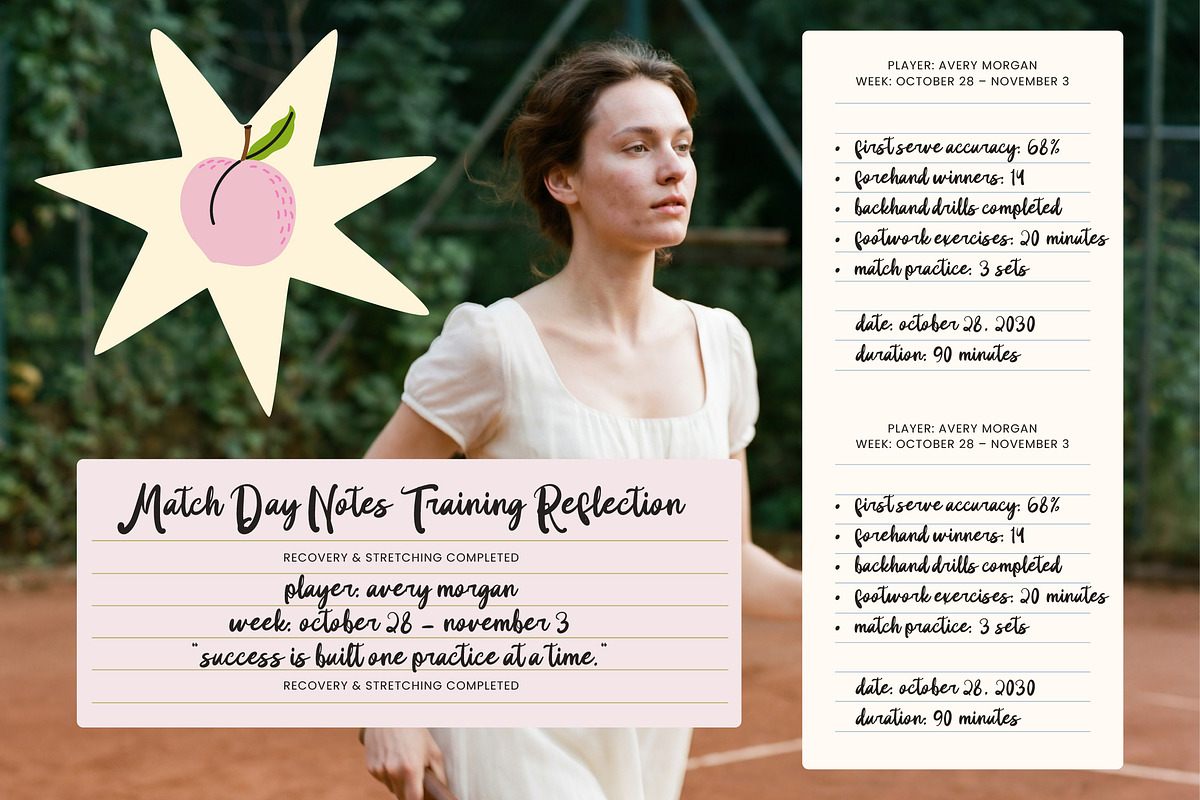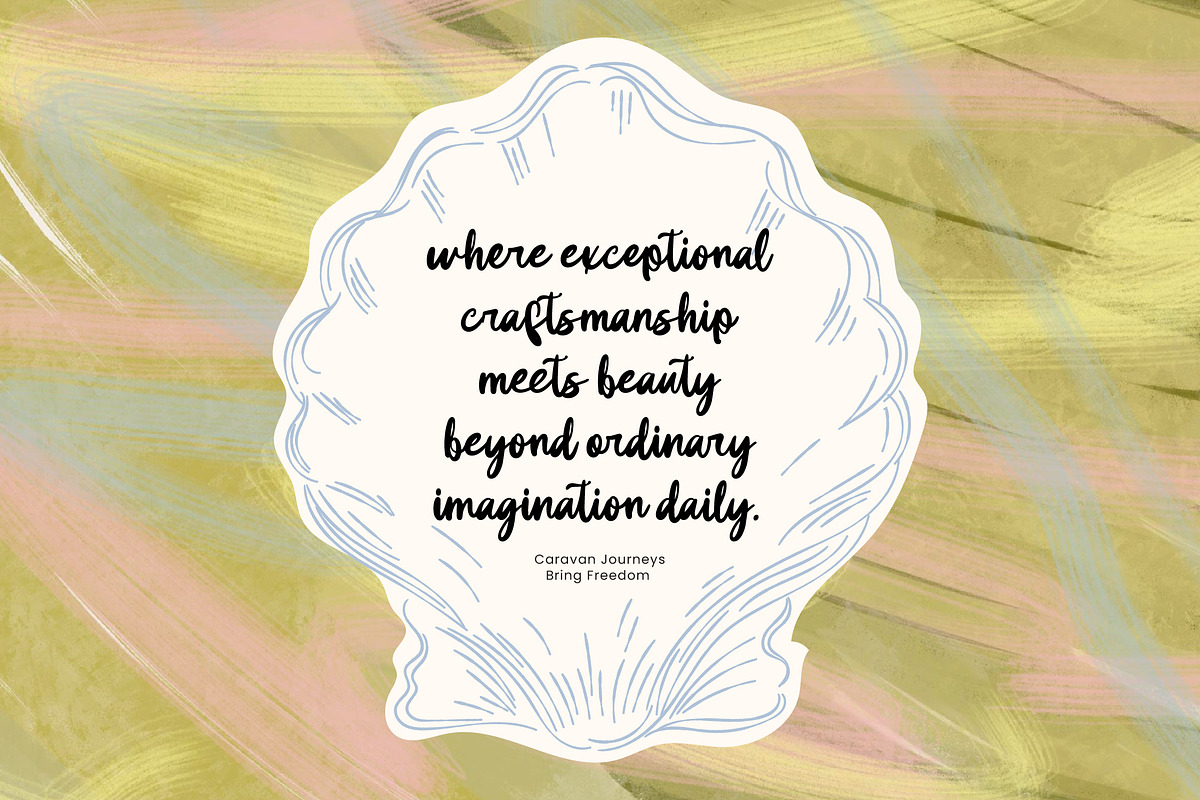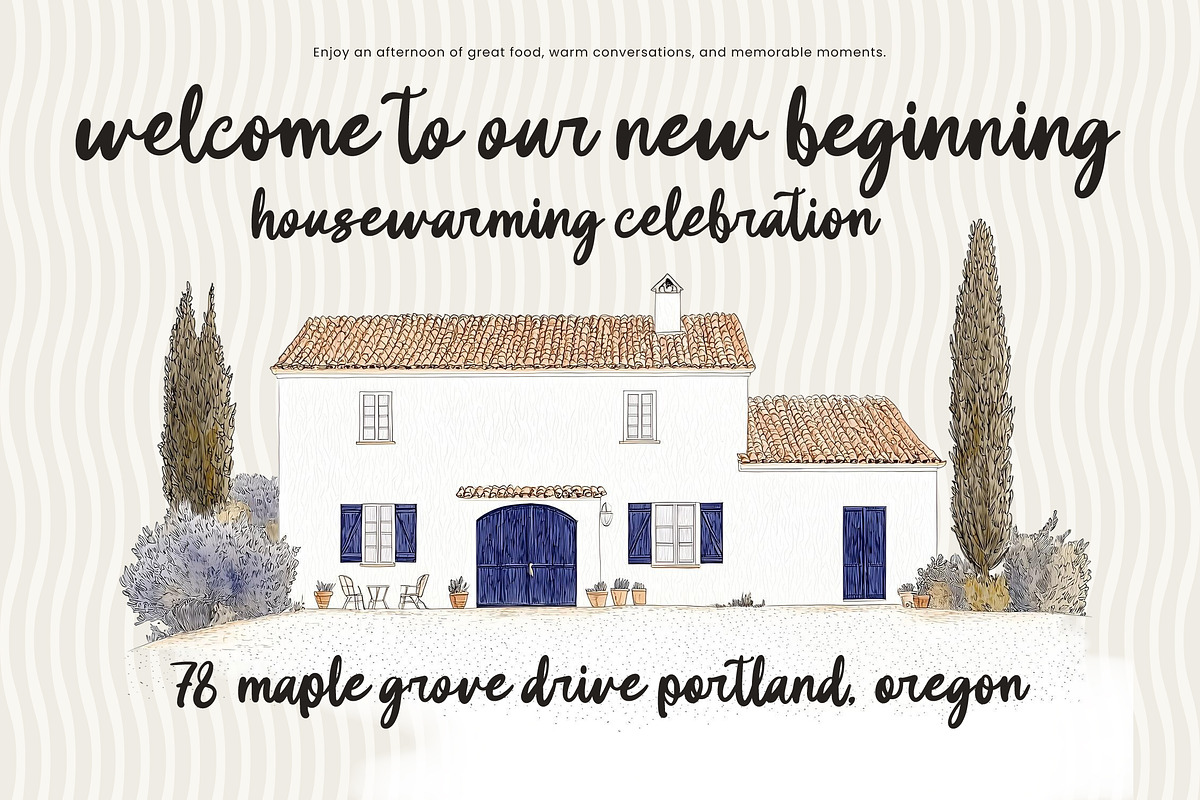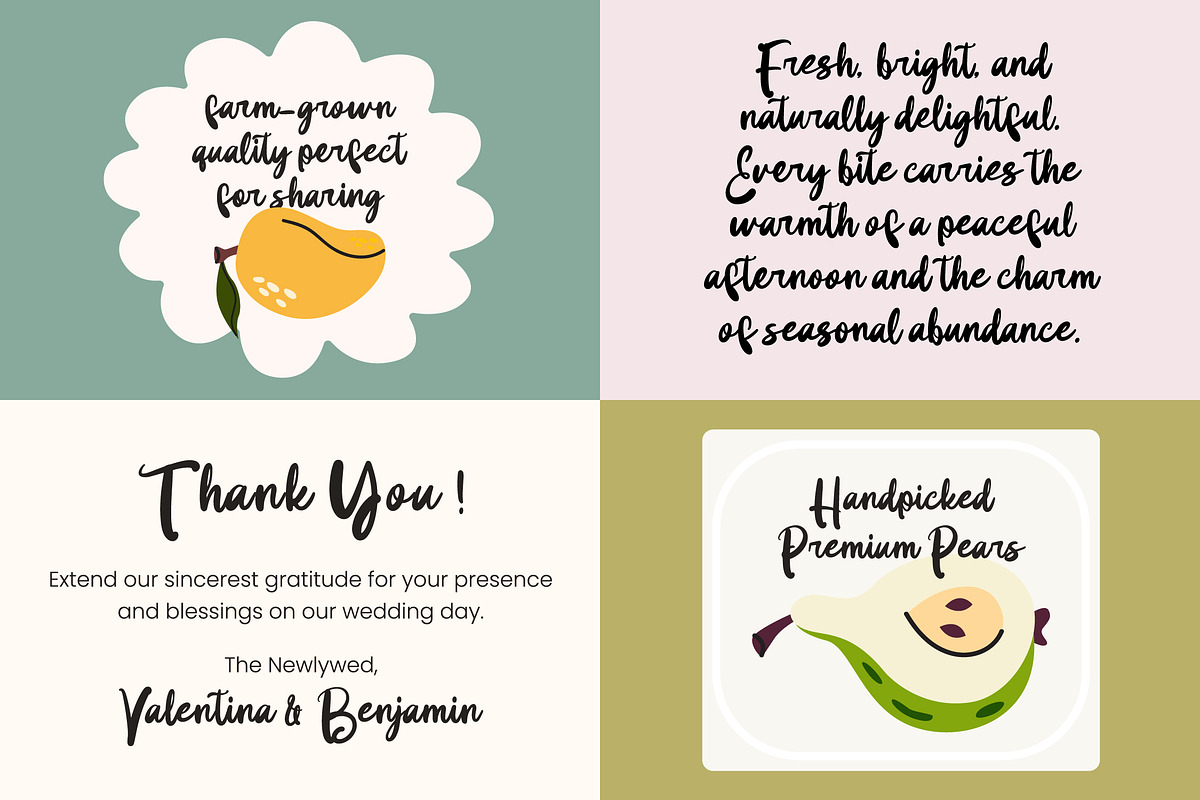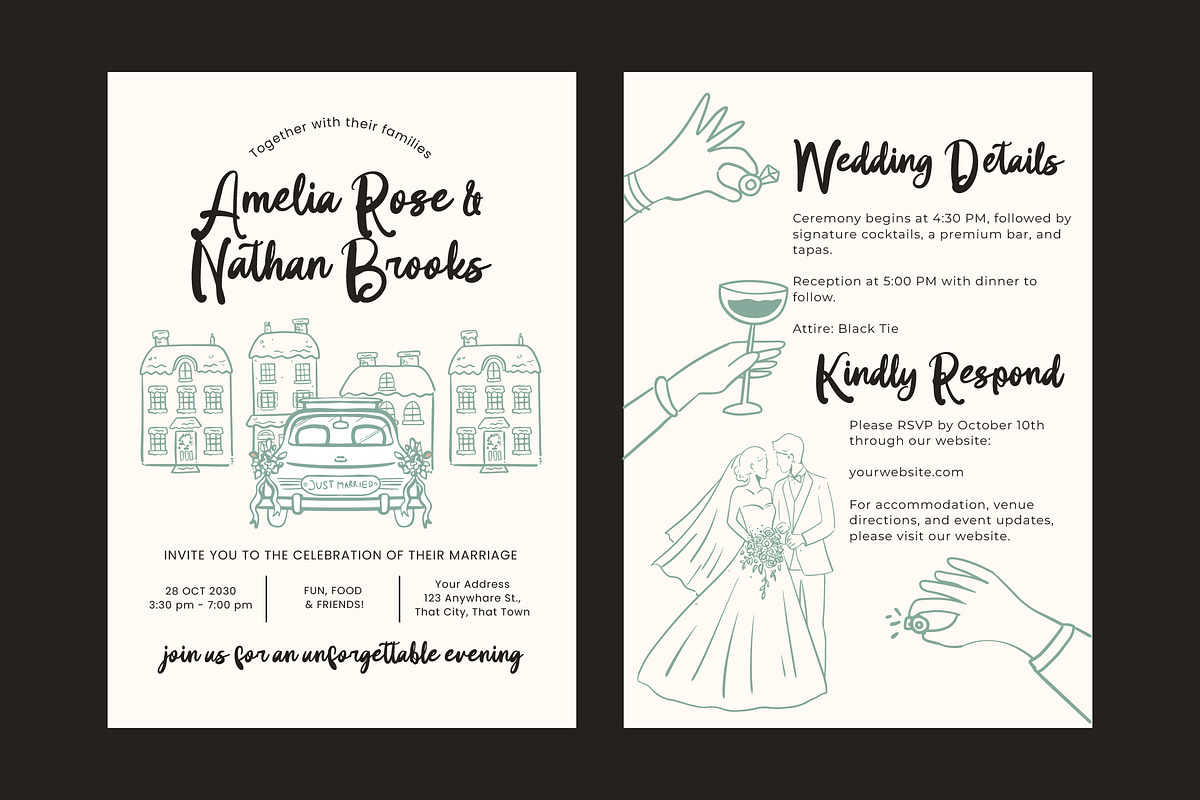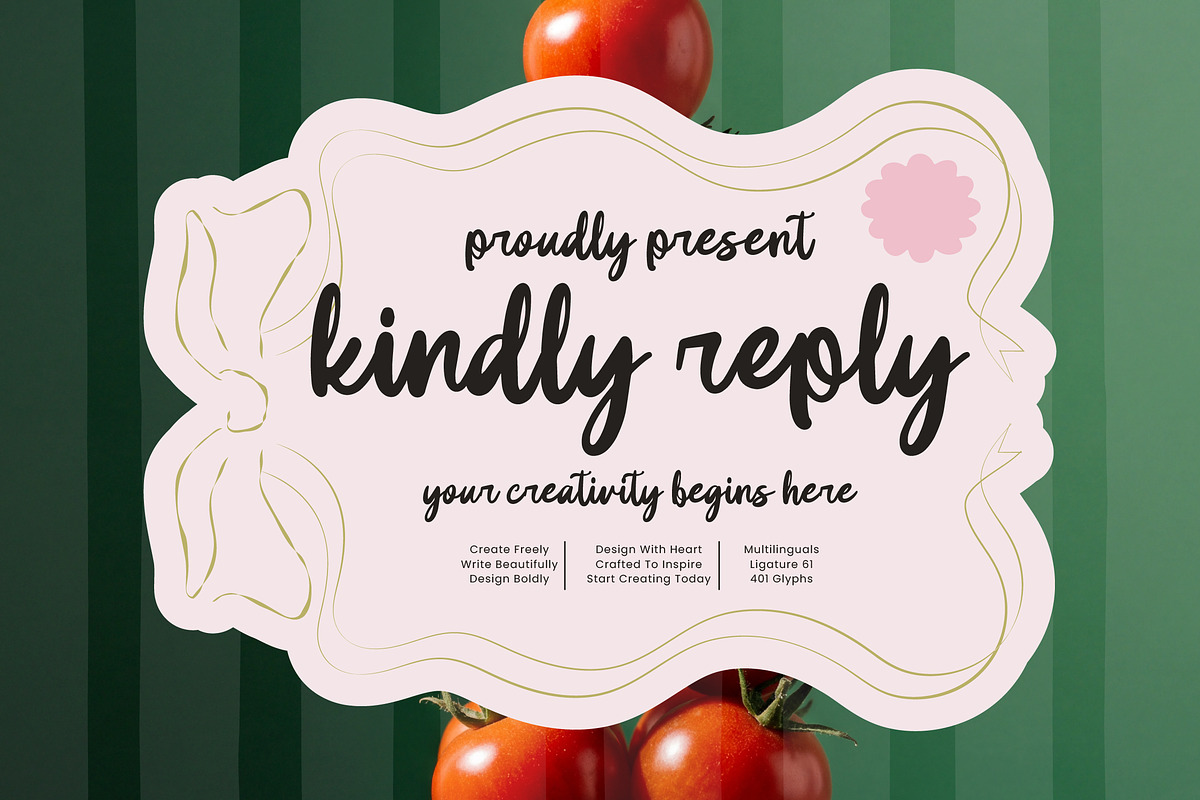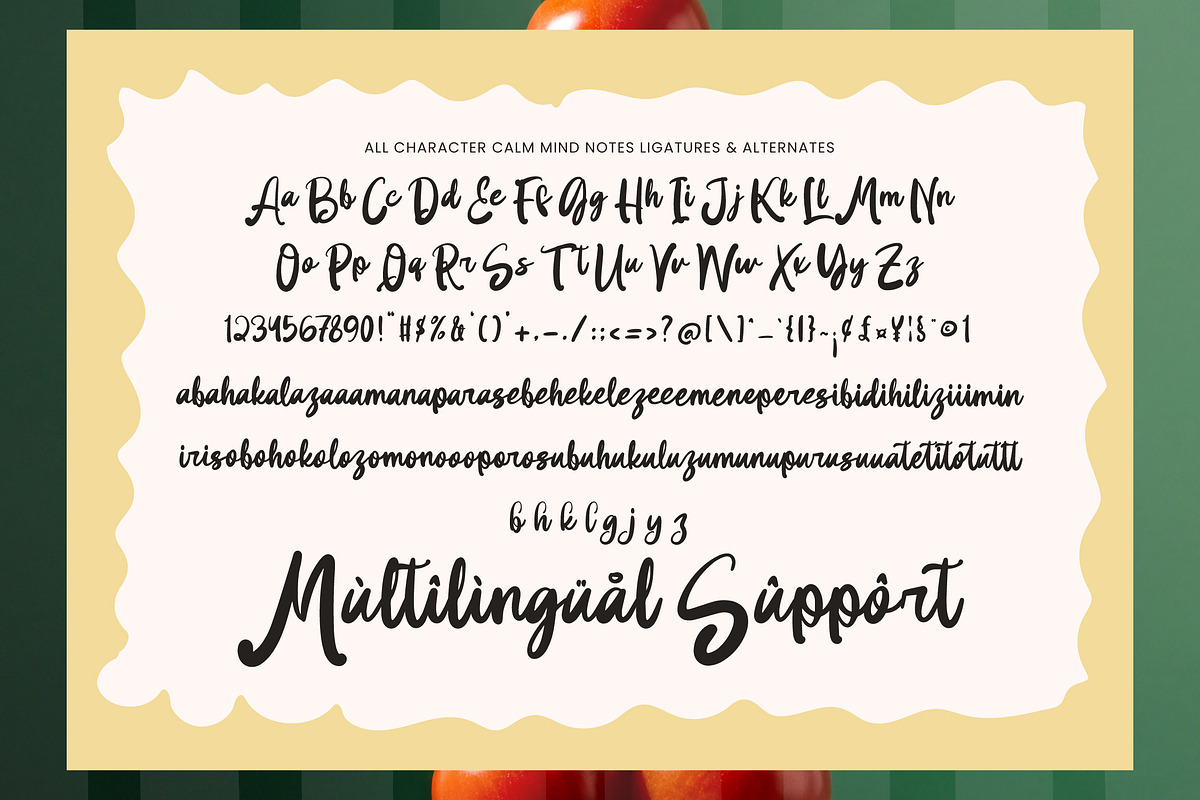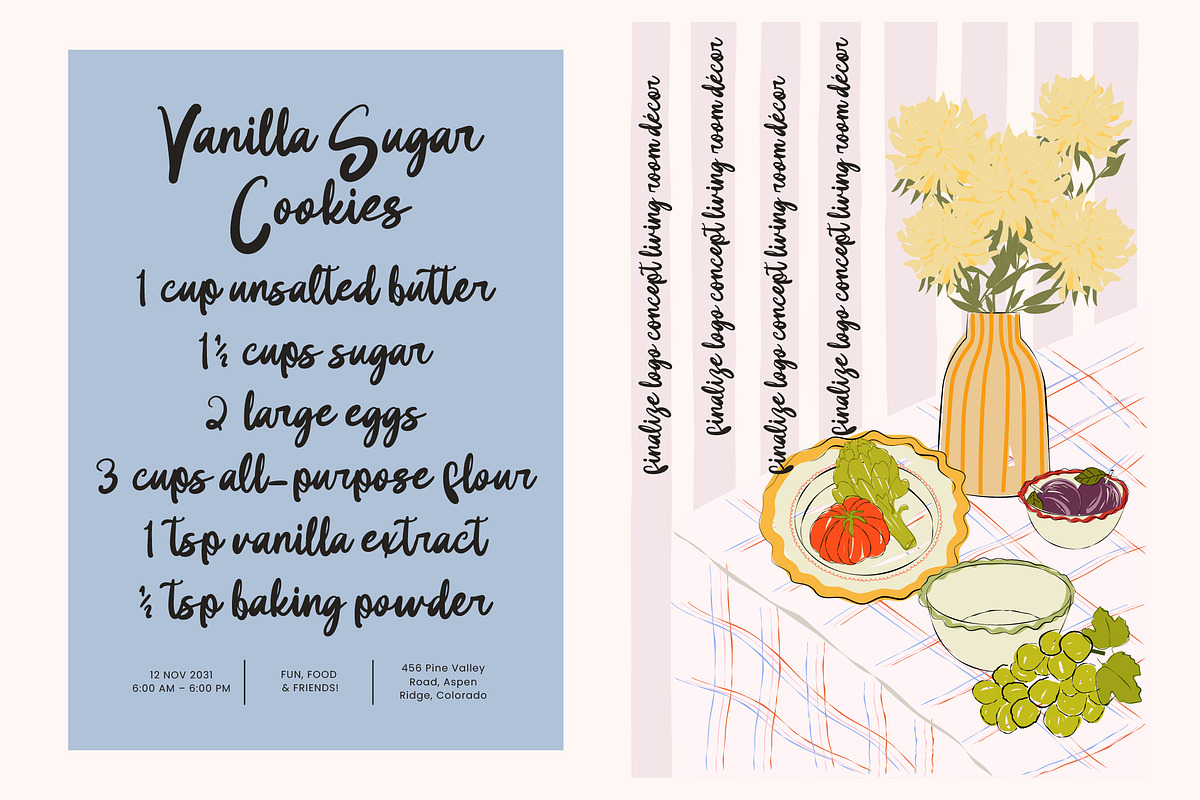
Kindly Reply Whimsical Handwritten
Kindly Reply is a whimsical handwritten font designed to capture the warmth, charm, and spontaneity of natural handwriting. Featuring playful strokes, smooth curves, and an authentic handwritten personality, this typeface brings a friendly and creative touch to every design.
Inspired by handwritten notes, wedding stationery, recipe cards, journals, invitations, and lifestyle branding, Kindly Reply combines organic letterforms with a relaxed rhythm to create typography that feels personal, approachable, and beautifully expressive.
🔡 OpenType Features: 61 Ligatures & 8 Alternates
✏️ Total Glyphs: 401 Characters
🌍 Multilingual Support
Create charming invitations, beautiful stationery, heartfelt branding, and playful typography with Kindly Reply — a whimsical handwritten font designed to bring warmth, creativity, and personality to every project.